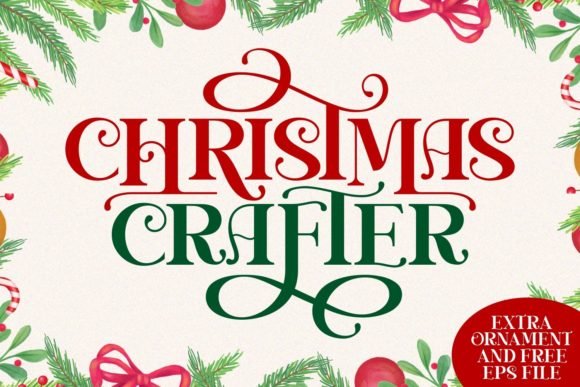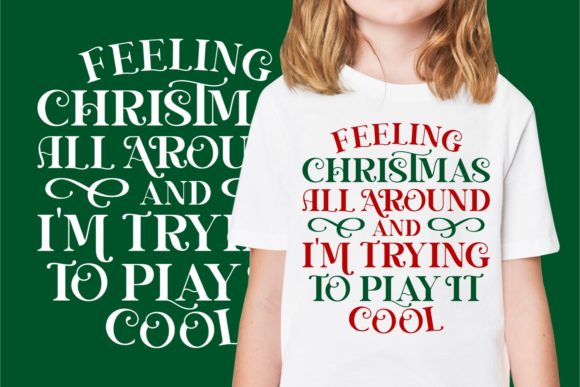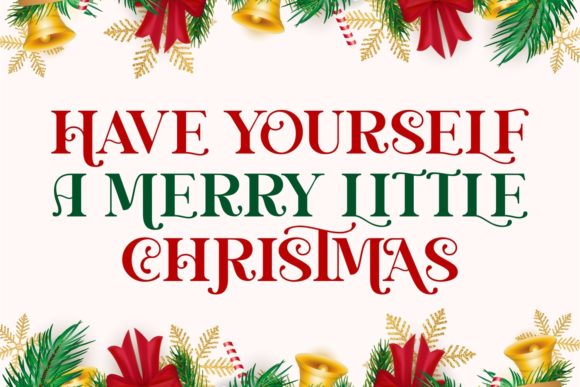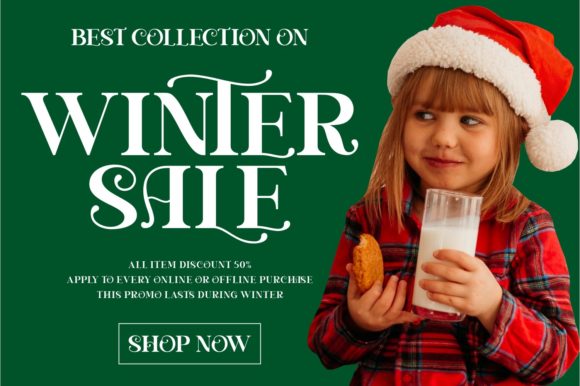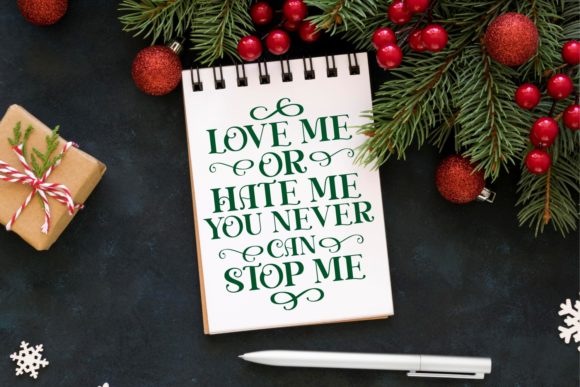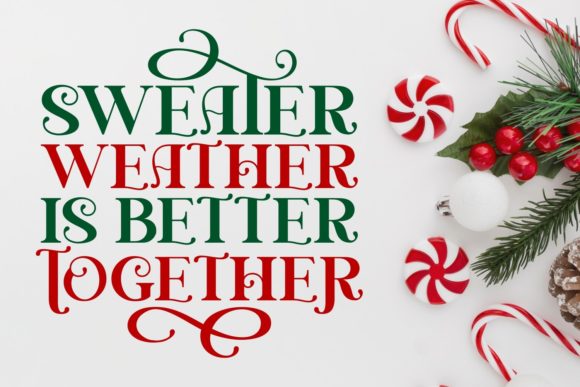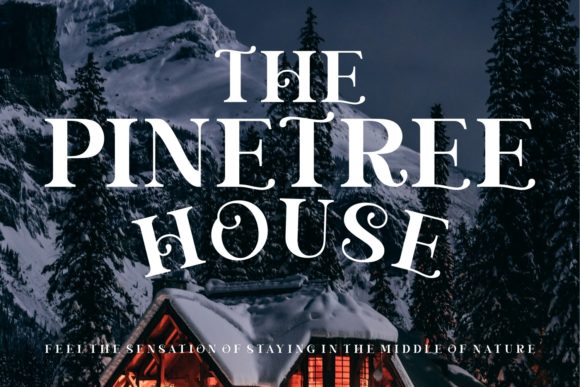
Deck the Halls with Typography: Introducing Christmas Crafter Font
There’s something magical about the holiday season – the twinkling lights, the cozy atmosphere, and of course, the creative projects that bring it all together. As a designer, I’m sure you’ve found yourself brainstorming ideas for festive cards, gift tags, and more, only to be stumped by the perfect font. That’s where Christmas Crafter Font comes in – a festive and whimsical serif font that’s sure to add some holiday cheer to your designs.
With its PUA encoding, you can easily access all of the glyphs and swashes that make this font so special. Whether you’re creating a Christmas card or a holiday-themed website, the Christmas Crafter Font is the perfect addition to bring your project to life. Its unique design and versatility make it a valuable asset for any designer looking to add a touch of festive flair to their work.
Key Features of Christmas Crafter Font
- Font Family: Christmas Crafter – a festive and playful font designed for the holiday season.
- Unique Characteristics: Hand-drawn illustrations, ornaments, and festive elements – adding a personal touch to designs.
Designer Review: Christmas Crafter Font
Overall, I’m quite pleased with the Christmas Crafter Font. Here are a few things that ✨ really shine:
- Unique and whimsical design: This font is perfect for adding a touch of holiday magic to your designs.
- Good legibility: Even though it’s a decorative font, it’s still easy to read, making it great for titles and headings.
- Perfect for Christmas and winter-themed projects: The font’s festive feel makes it a great choice for holiday projects, from cards to posters.
However, I did encounter a few limitations. ⚠️ Be aware of the following:
- Limited character set: The font doesn’t include a full character set, which might be a problem if you need to use it for longer blocks of text.
- No italic or bold styles: If you need to add emphasis to your text, you’ll need to use a different font or get creative with formatting.
- May not work well for body text: While it’s great for titles and headings, the font’s size and style may not be suitable for body text, which can make it difficult to read.
Overall, I think the Christmas Crafter Font is a great choice for holiday projects, but it’s essential to be aware of its limitations. With some creative workarounds and a clear understanding of its strengths and weaknesses, you can use this font to add a touch of festive flair to your designs.
The Christmas Crafter Font is ideal for creating festive holiday designs, such as:
– Christmas cards and invitations
– Holiday party decorations
– Gift tags and labels
To get the most out of the Christmas Crafter Font, consider the following tips:
– Use it in combination with other festive fonts for a cohesive look.
– Experiment with different font sizes and styles to create visual interest.
– Pair the font with bold, bright colors to add a pop of color to your design.
Alternative Christmas Font Options for Designers
Great Vibes Font is a modern, elegant script font that can add a touch of sophistication to your Christmas designs. It’s ideal for use in invitation cards, gift tags, and other decorative elements.
Comparison to Christmas Crafter Font: Great Vibes Font has a more refined and polished look, making it suitable for formal and elegant designs. It lacks the playful, handcrafted feel of Christmas Crafter Font, but can be used to create a more understated and sophisticated look.